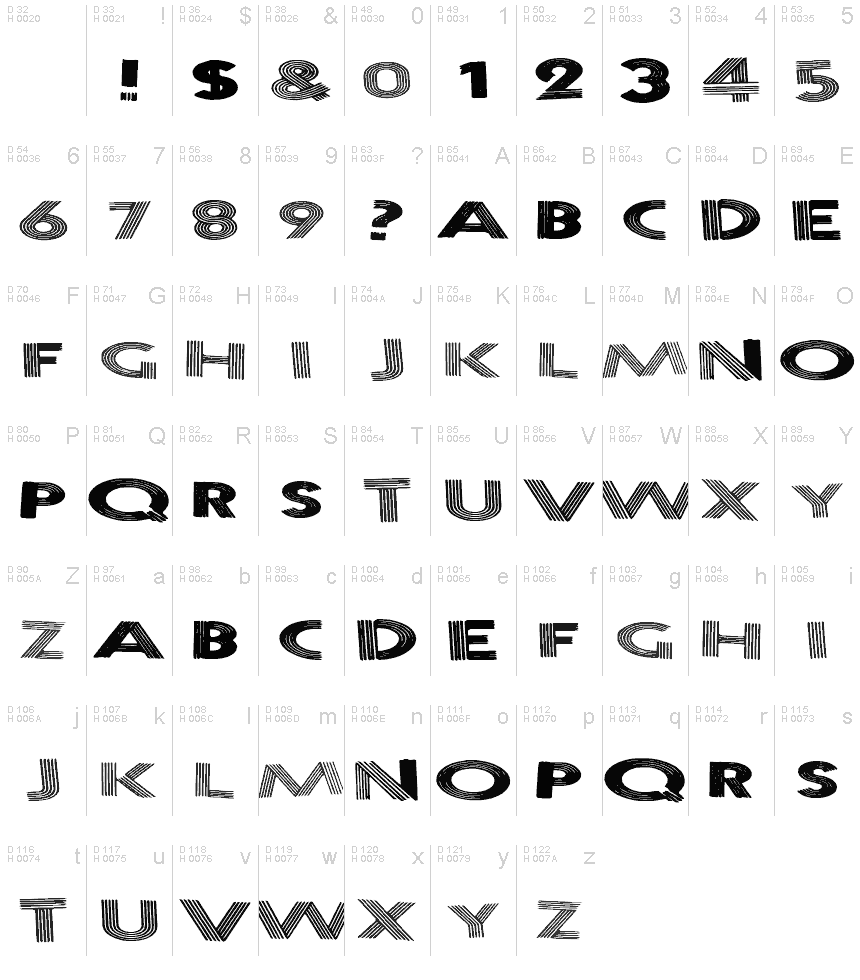
NewsWorthy
News Worthy is a bold, expanded display font designed by Xerographer Fonts' Max Infeld. With its striking letterforms and sturdy presence, this font commands attention. The wide, geometric characters exude a contemporary, authoritative vibe, making News Worthy well-suited for headlines, branding, and editorial applications. Its expanded width lends an air of confidence and grandeur, while the bold weight ensures readability across various mediums.
News Worthy's unique aesthetic seamlessly bridges the gap between classic and modern, offering designers a versatile tool to make a lasting impact in their projects.